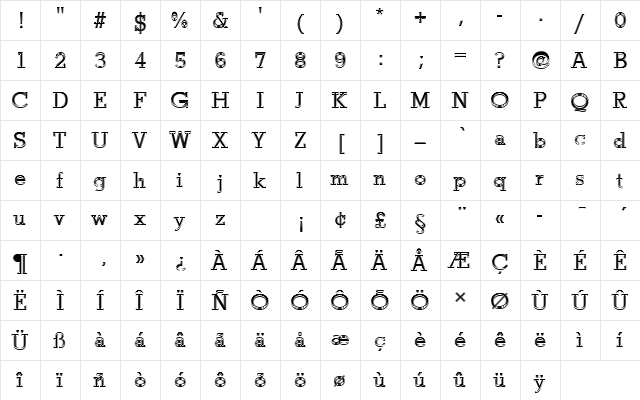
StymieTRegIn1 Regular
Design Context for StymieTRegIn1 Typeface
StymieTRegIn1 is a composed and adaptable typeface that performs quietly and consistently across a wide range of design contexts.